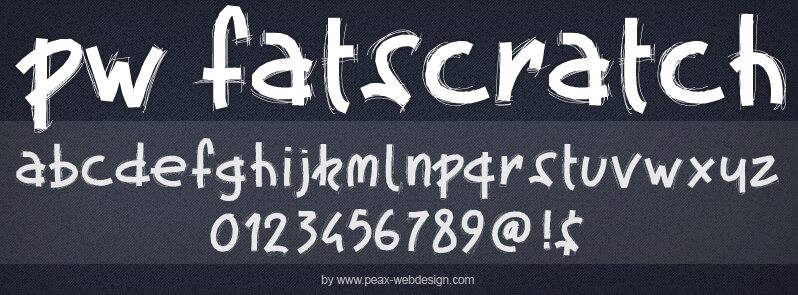
PWFatscratch
PW Fatscratch is a captivating script font that exudes a raw, gritty charm. Designed by Peax Webdesign, this typeface boasts a distinctive "trash" style, with irregularly shaped letterforms that convey a sense of edgy, urban sophistication. The uneven strokes and varied line weights create a visually striking and dynamic appearance, making PW Fatscratch an ideal choice for a wide range of design applications, from branding and packaging to editorial layouts and event posters.
Its bold, expressive personality lends itself particularly well to projects seeking to evoke a sense of authenticity, rebelliousness, or an alternative aesthetic.